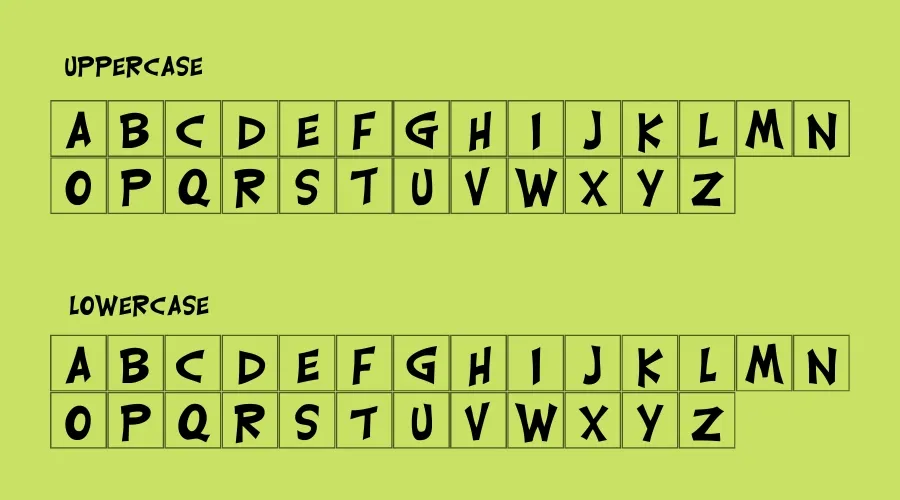
Carrick Groovy Font
About Carrick Groovy Font
Now, going to introduce to you a very elegant and stylish texture that is known as the name of Carrick Groovy Font. This font was developed by a famous graphic designer named David Krakowski and is under the category of the groovy texture family with a unique and gorgeous texture look. You may easily get it free from here and utilized it on your both operating system PC and MAC.
This font was first announced in 2010 and was released in 1993. This font contains various type of styles and weights such as bold, italic, and regular. It includes all types of alphabet characters like small letters, capital letters, numerals, digits, and punctuations.